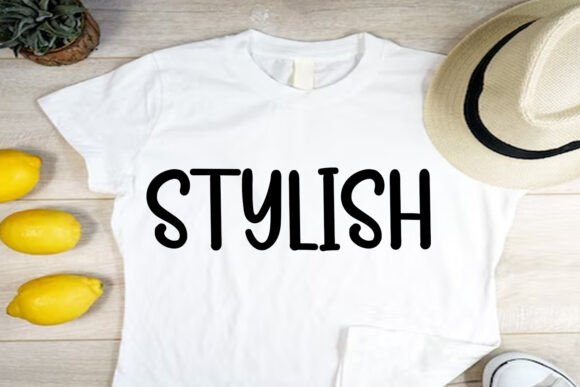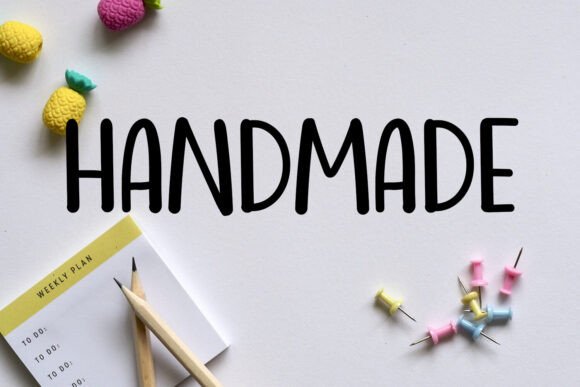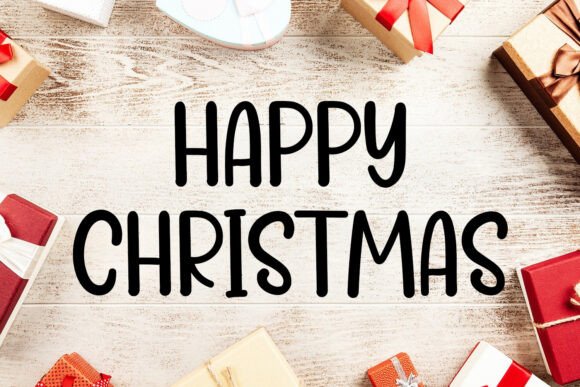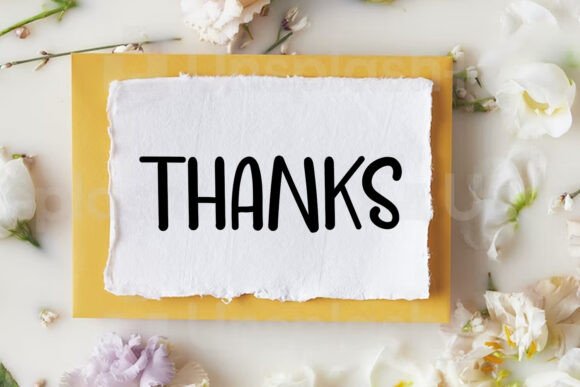
Unleash Your Creativity with the Charming Font
There’s nothing quite like the thrill of staring at a blank canvas, a blank document, or a blank screen, waiting for inspiration to strike. The blank slate is a creative’s best friend, and it’s in these moments that we often find ourselves searching for the perfect tool to bring our ideas to life. Enter the Charming Font, a new wave of artistic font designed to breathe life into your creative pursuits.
This beautifully crafted font is not just a typeface – it’s a statement piece that can elevate your brand image and leave a lasting impression. Whether you’re designing YouTube banners, logo mockups, or wedding invitations, the Charming Font is the perfect addition to your design arsenal. Its unique character and aesthetic appeal make it a high-impact typeface that’s sure to capture attention and foster growth.
Key Features of Charming Font
- Size: The font family includes 12 styles ranging from Extra Light to Extra Bold, each with its unique characteristics.
- Resolution: Charming Font is designed to be scalable and suitable for both print and digital applications, with optimal results at resolutions up to 300 DPI.
- Unique Characteristics: Charming Font features elegant and refined lines, making it perfect for creative and high-end designs. Its unique blend of modern and traditional elements adds a touch of sophistication to any project.
Charming Font Review
Overall, I think the Charming Font is a lovely addition to any design project. ✨ The elegant curves and classic feel make it perfect for any vintage or romantic-themed design. The font is also highly customizable, allowing you to adjust the size, color, and spacing to fit your needs.
- ✨ The Charming Font is highly legible, making it perfect for body text or titles.
- ✨ The font comes in a range of weights, from light to bold, giving you plenty of options for emphasis.
- ✨ The Charming Font is highly versatile, working well in both print and digital designs.
However, there are a few limitations to consider. ⚠️ The font may not be the best choice for modern or minimalist designs, as it has a more traditional feel. Additionally, the font may not be as effective at smaller font sizes, as the curves can become blurry.
Overall, I think the Charming Font is a great choice for designers looking to add a touch of elegance and sophistication to their projects. While it may have some limitations, the benefits far outweigh the drawbacks.
Tips for Getting the Most Out of Charming Font
To get the most out of Charming Font, try the following:
- Use it to create eye-catching headings and titles.
- Experiment with different font sizes and colors to add visual interest.
- Combine Charming Font with other fonts to create a unique and visually appealing design.
Charming Font is perfect for:
- Creating invitations and event graphics.
- Designing business cards and marketing materials.
- Develop